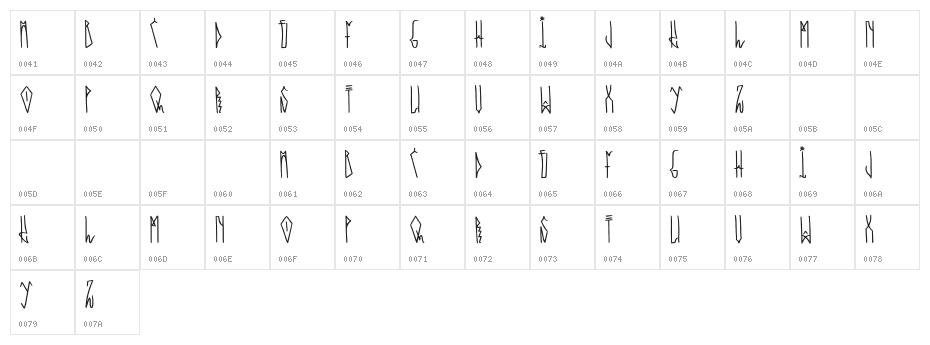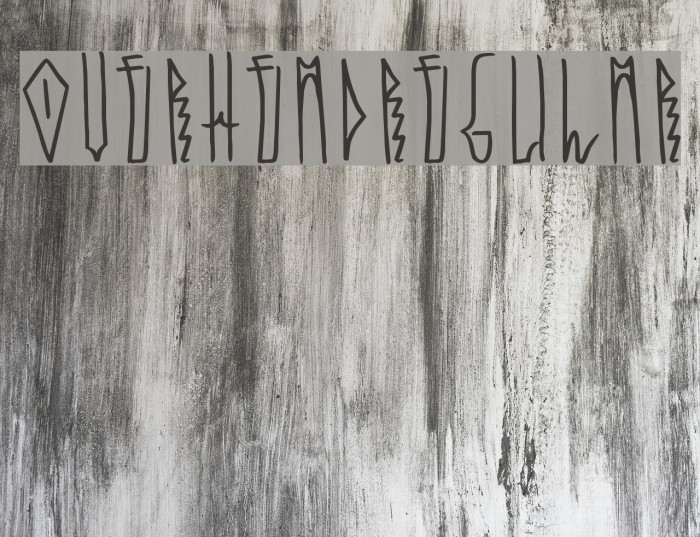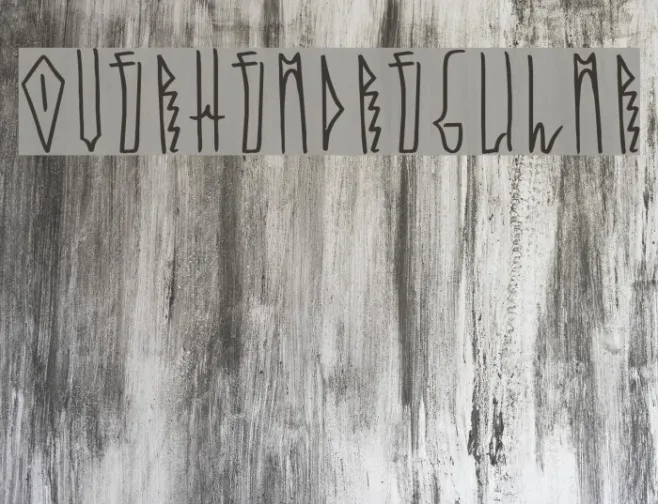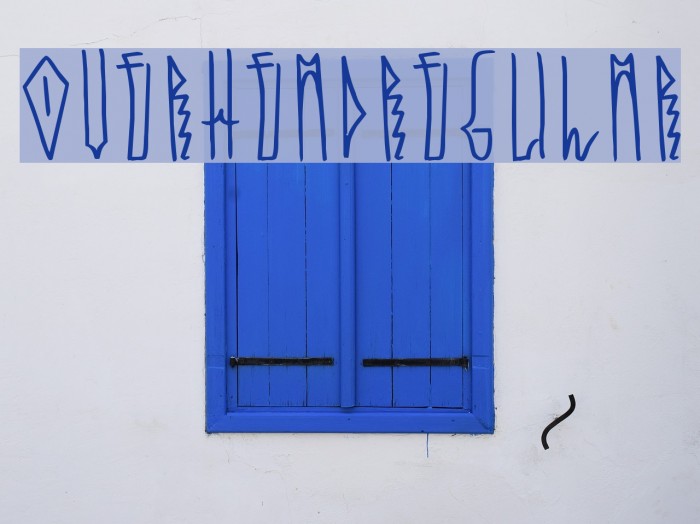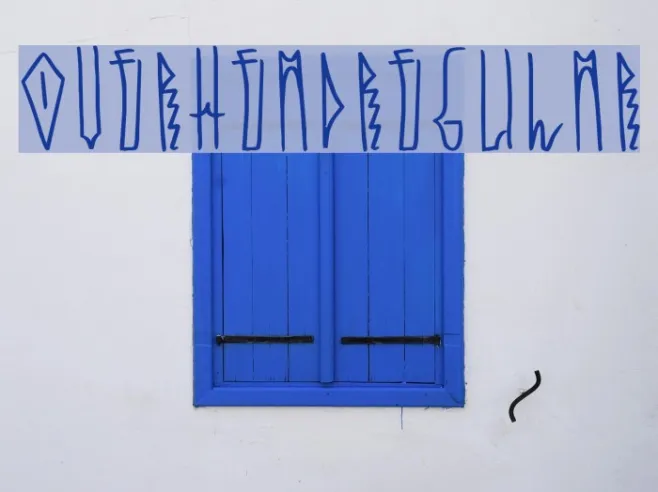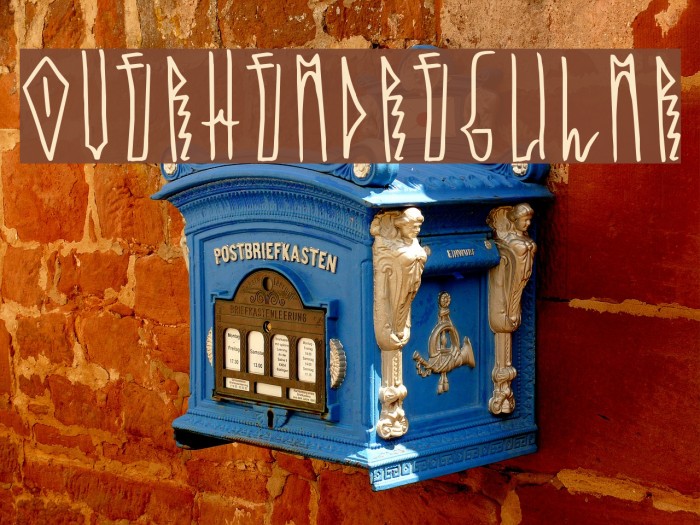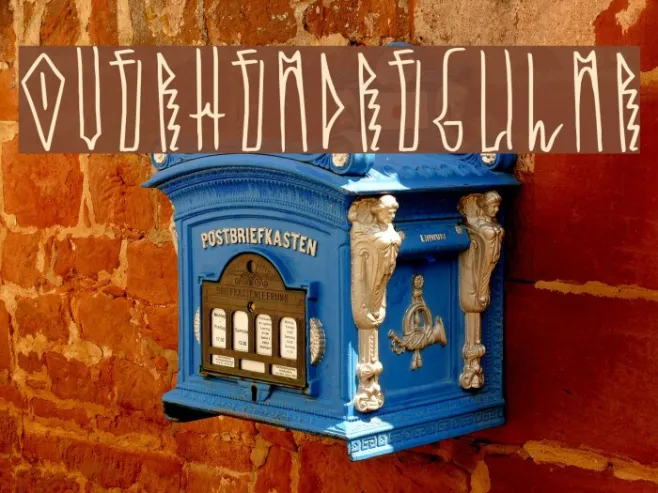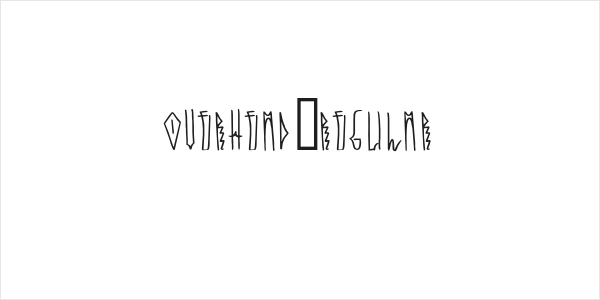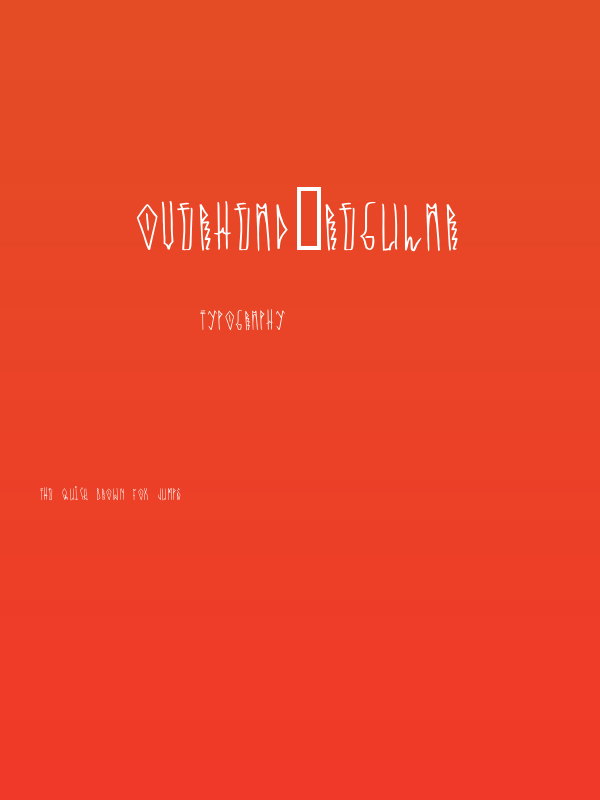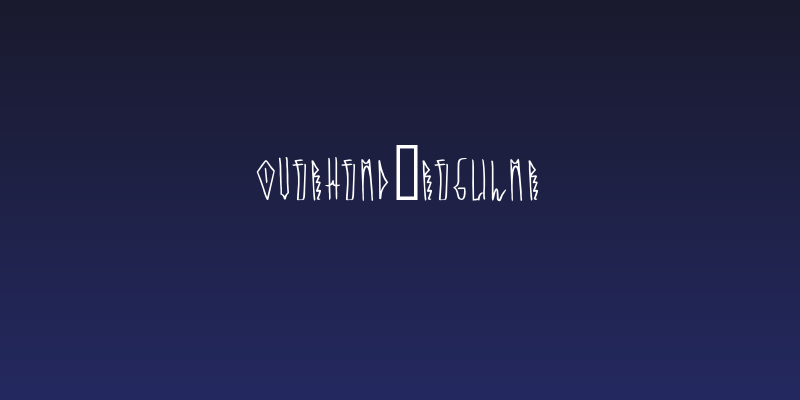
Overhead-Regular Font
Overhead-Regular Description
This font features a unique, abstract design with elongated and angular letterforms. The characters are tall and narrow, giving a sense of height and elegance. The strokes are thin and consistent, with some letters incorporating geometric shapes and lines that add a decorative touch. The overall appearance is modern and artistic, making it stand out with its distinctive style. The font includes both uppercase and lowercase letters, as well as numbers and a selection of special characters. Its unconventional design makes it suitable for creative and artistic projects.
| Use Case | Logos, Posters, Artistic projects |
| Proposed Projects | Ideal for artistic projects, modern branding, posters, and creative designs. |